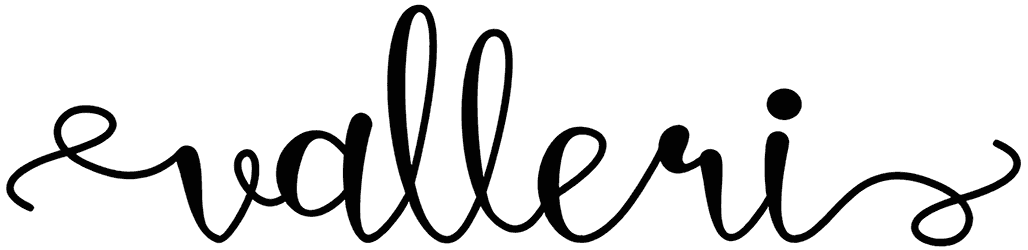
Valleri Font
Designed byVincentius Kriswandono
If you’ve wanted to incorporate beautiful calligraphy into your designs but need to know how to do it yourself, Valleri is your lucky spot. Using this romantic font, you can create impressive designs like actual fonts and convey a personal feeling to the audience.
The flowing and decorative twists of this calligraphy font start an illegible but happy mood in the writings, which makes it very prominent for writing Valentine’s love letters and greeting cards.